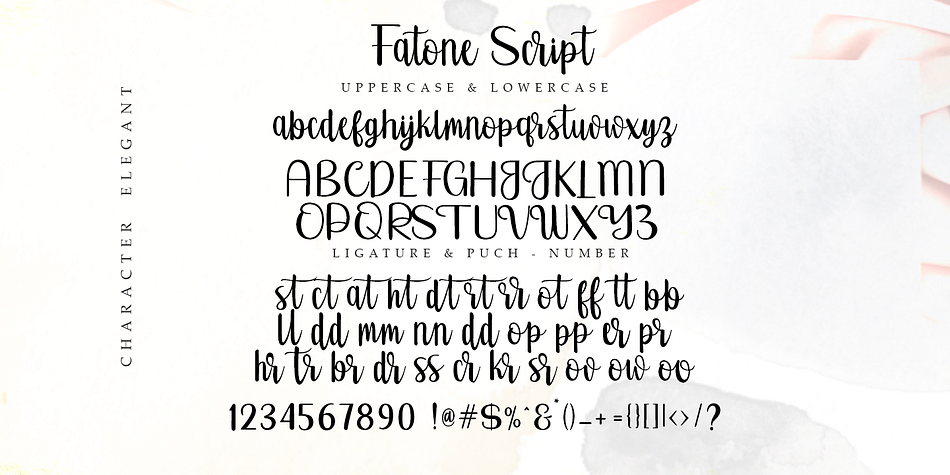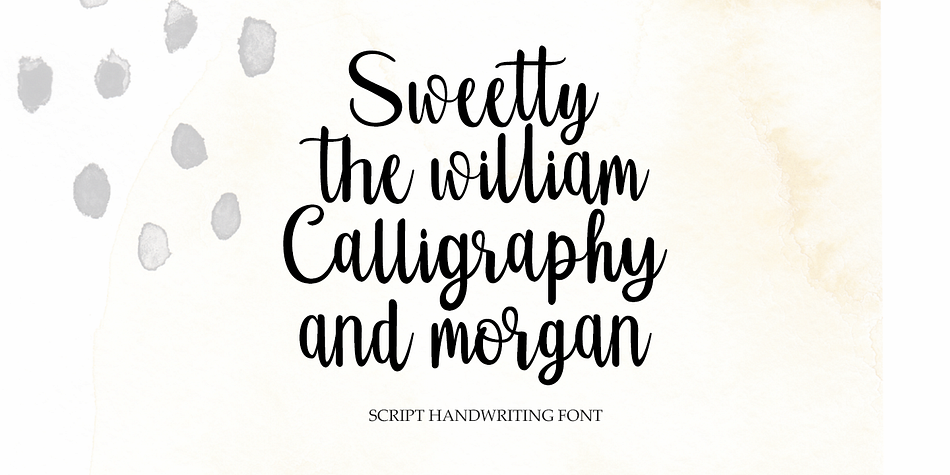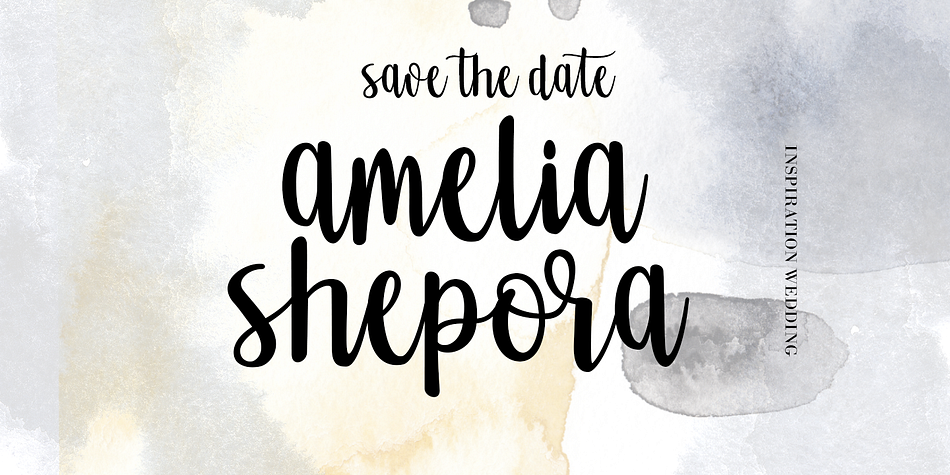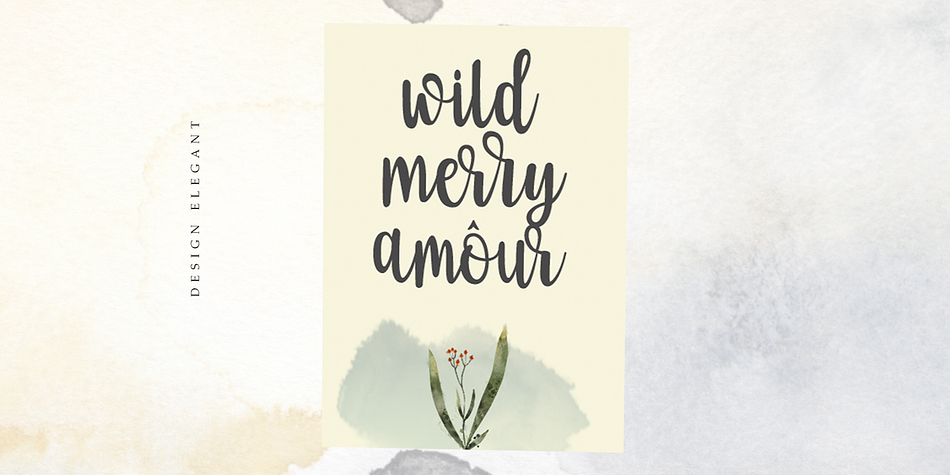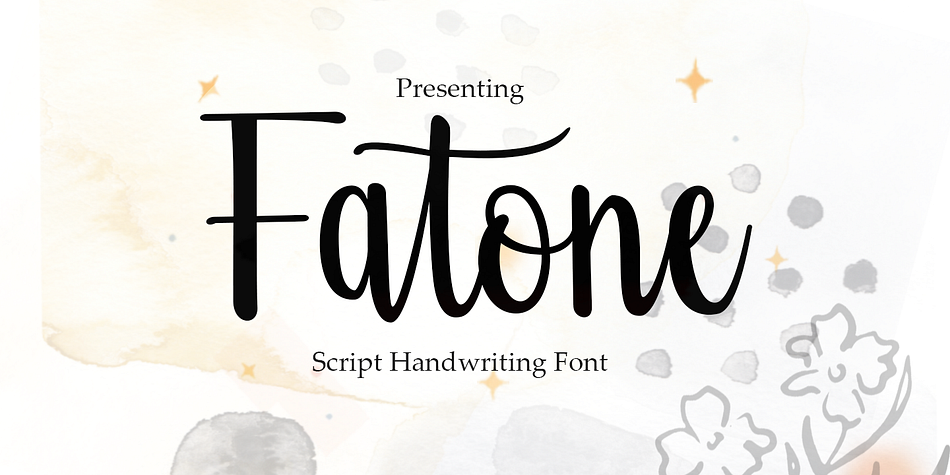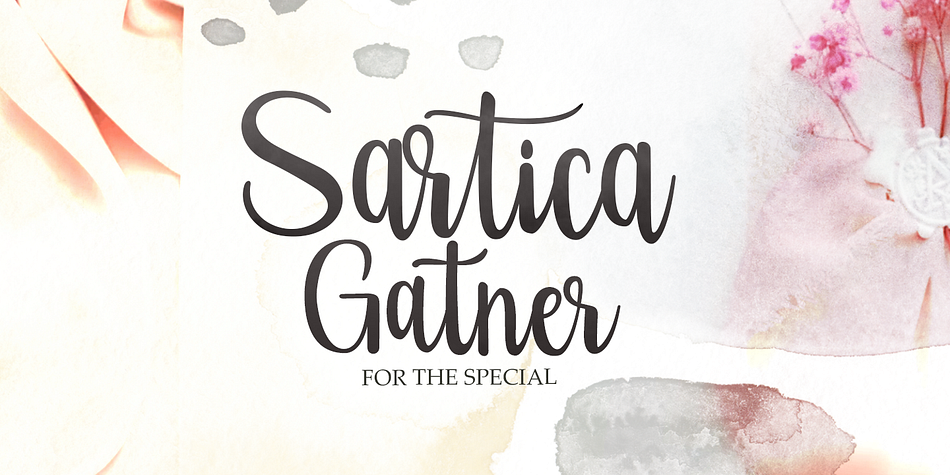
Fatone
Fatone is a script font family published by Gatype.
Fatone Script is an elegant script with a creative mood and perfect form, inspired by today’s beautiful calligraphy. thick, balanced and varied, born for luxury and beauty.
In my example I show how this script can be used. It’s great for logotypes, branding, wedding invitations, romantic cards, alcohol labels, packaging, name spelling and more.
Fatone Script comes with beautiful uppercase and lowercase letters, numbers, and punctuation. In addition to the main character set, there are many alternative characters, early and late sweeps. You also get 4 font variations regular, outline, italic, distort which harmoniously complement the original text.